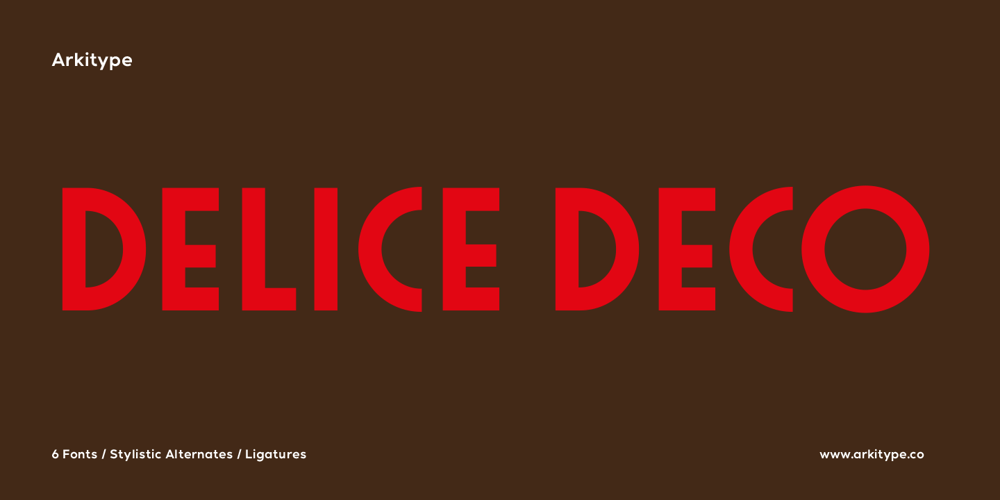
Delice Deco
Delice Deco font
Delice Deco Font Family was designed by Andrew Footit and published by Arkitype. Delice Deco contains 6 styles and family package options. Delice Deco is a modern take on classic art deco fonts. With a little french flair this display family comes in 6 weights, each font has loads of stylistic alternates. From regular to black in weight there is a good variety for a versatile typeface.Delice deco was created with food and beverage in mind, from quaint french cafe branding to chic New York restaurant menus. This typeface offers an array of alternate characters to give your designs a great unique look. Perfect for use in packaging, headlines, menus, logotype work, branding and much more.